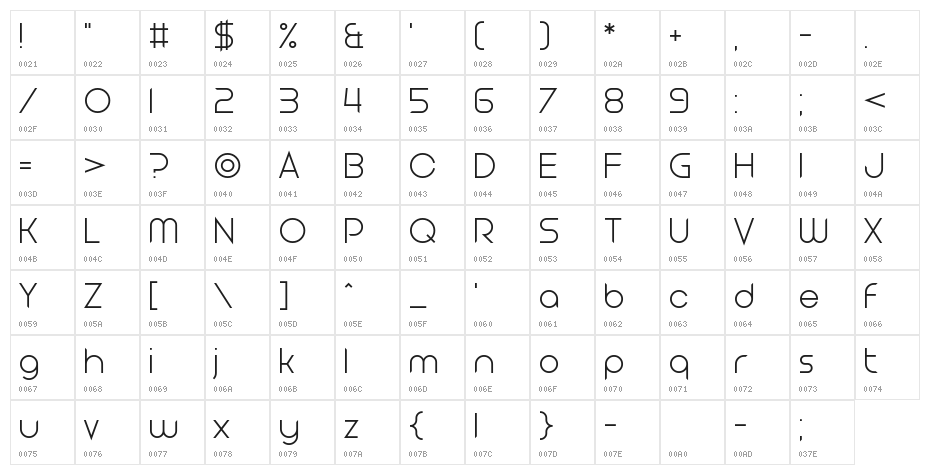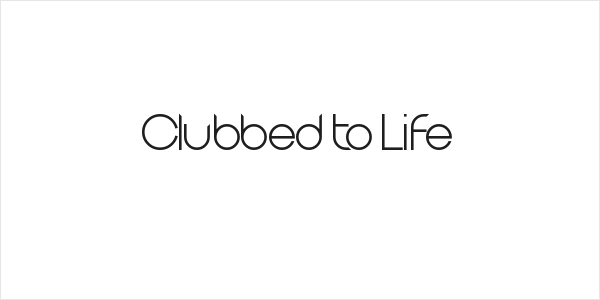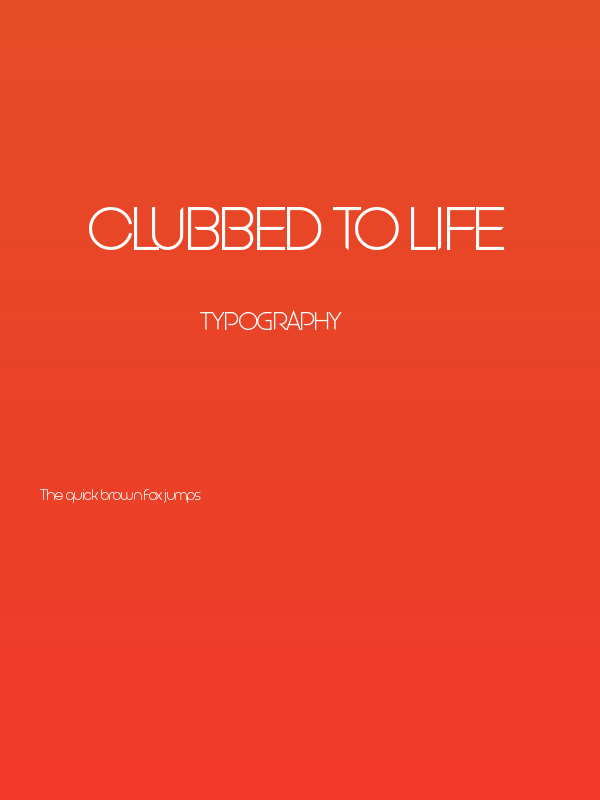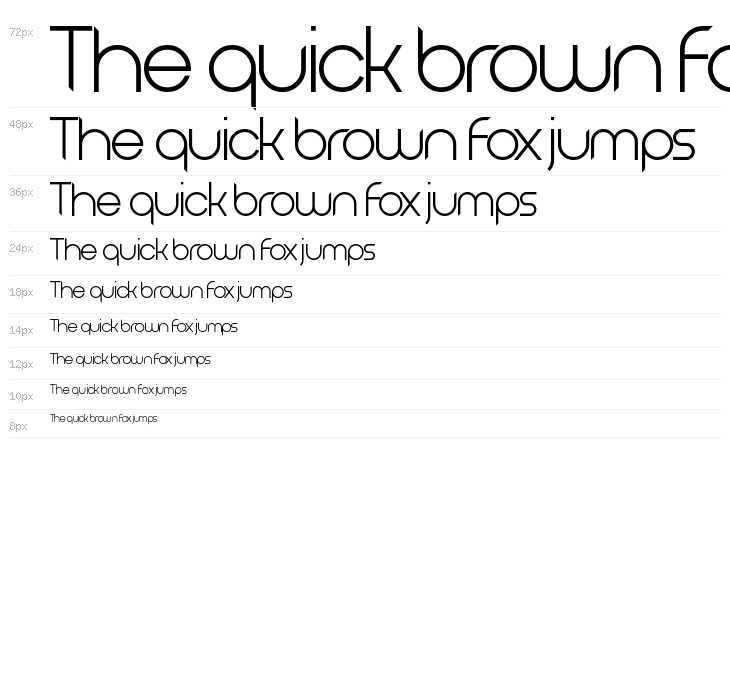
Clubbed to Life Font
Clubbed to Life Description
This font features a sleek, modern design with geometric influences. The characters are composed of clean, straight lines and smooth curves, giving it a futuristic and minimalistic appearance. The uppercase letters are uniform in height, while the lowercase letters maintain a consistent x-height, contributing to a balanced and harmonious look. The numerals are distinct and easy to read, with a similar geometric style. Special characters are well-integrated, maintaining the overall aesthetic. This font is versatile, suitable for a variety of digital and print applications.
| Use Case | Headlines, Logos, Digital interfaces |
| Proposed Projects | Ideal for branding, digital interfaces, advertising, and editorial design. |